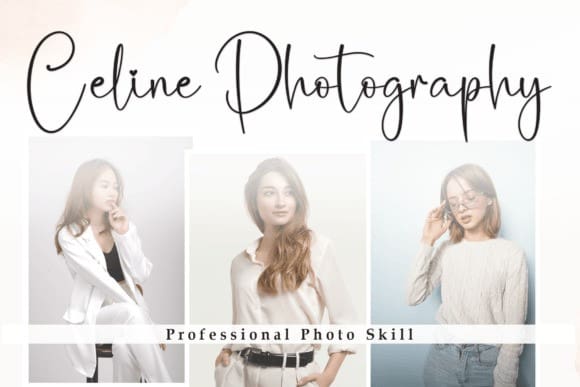
Butter Garlic Font
Butter Garlic Font is a sweet and friendly handwritten font. Its natural and unique style makes it incredibly fitting to a large pool of designs. The only limit is your imagination!